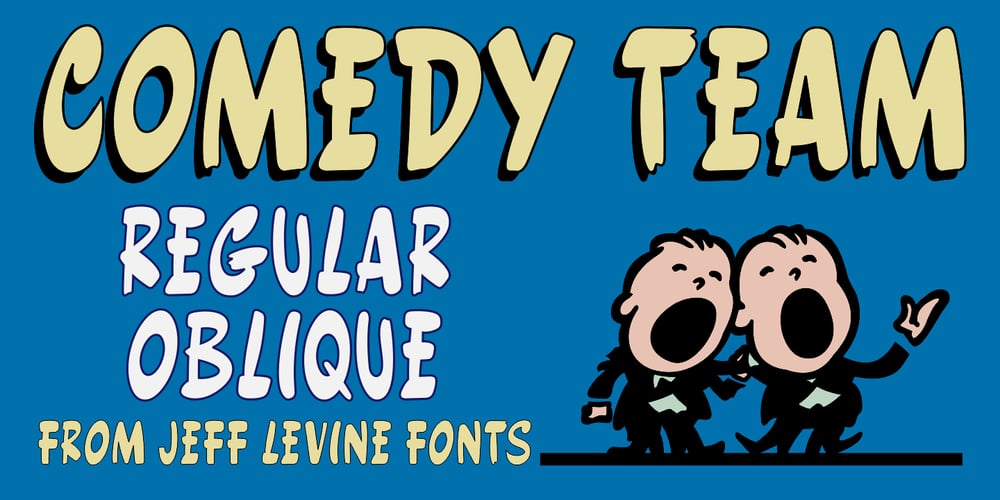
Comedy Team JNL Font Family was designed by Jeff Levine and published by Jeff Levine. Comedy Team JNL contains 2 styles and family package options. The November 11, 1941 issue of The Film Daily carried an ad for “Look Who’s Laughing”, a comedy pairing two of the country’s most popular radio teams of the time – Fibber McGee and Molly (Jim and Marian Jordan) and Edgard Bergen and Charlie McCarthy, along with Lucille Ball.Word copy for the ad was hand lettered in a showcard brush style.